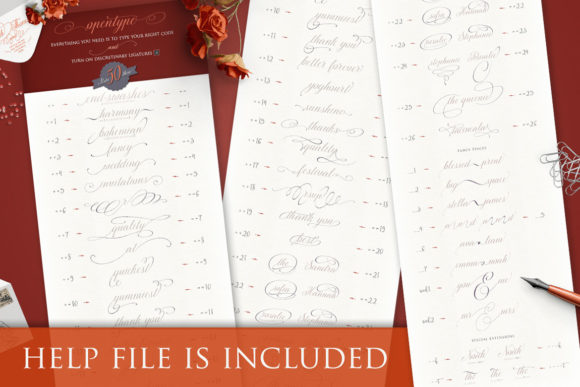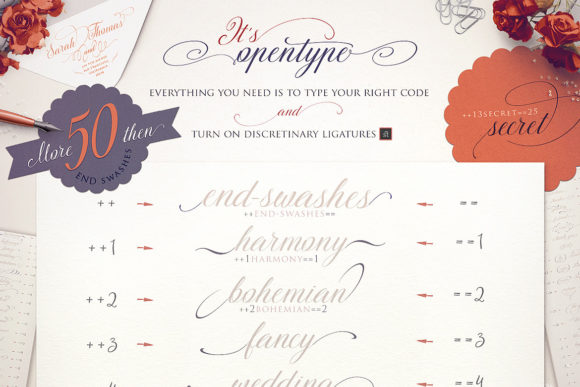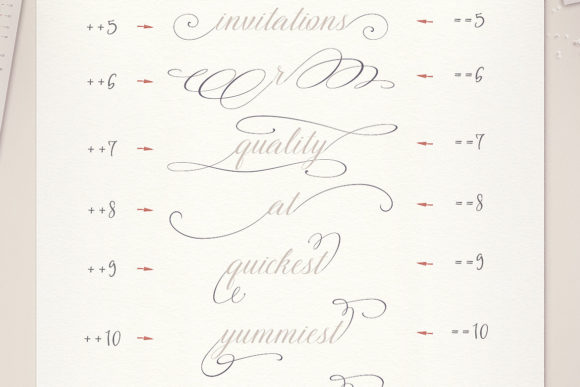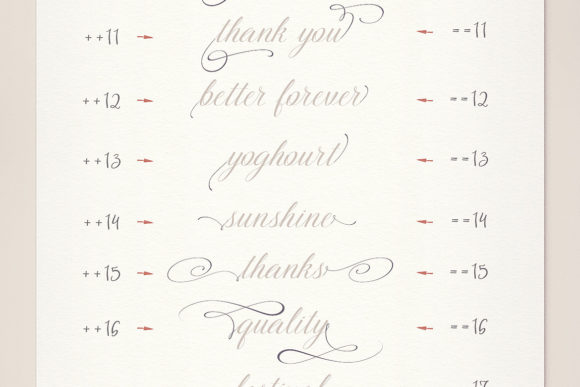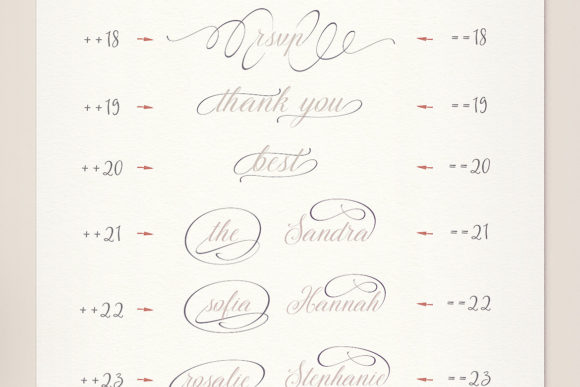
About The Secret Font
The Secret is a beautiful unique calligraphy style font that comes with loads of glyphs and features. The secret is so beautiful and contains so many features that it has been coined as the alternative to the beautiful Samantha script & Magnolia Sky font. Some will agree with this assessment, others might not, but we can all agree that The Secret is a stunning font with a even more stunning design. It’s unique and truly one of a kind.
This fancy font comes with 689 glyphs and contains more than 50 end-swashes. Every end swash has been carefully crafted by hand to create a perfectly balanced font.
Some of the unique features of The Secret font are:
– Contextual Alternates
– Discretionary Ligatures
– Stylistic Alternates
– Swashes & Swooshes
– PUA Encoding (Private Use Areas)
Creating The Secret Font
The creation of The Secret was a very delicate and time consuming process. In order to strike the right balance between elegance, usability and readability every glyph was created with a single key value in mind: Coherence.
Every letter has been carefully drawn, tested, drawn again and digitally optimized.
The result is a beautiful font where every letter integrates perfectly. While a lot of handwritten fonts are focusing on certain groups of users, The Secret has been created with both personal as professional use in mind.
Using The Secret
The Secret is a font that allows you to play and experiment. You can literally use it for any type of project. It doesn’t matter if you need to create a wedding invite, a business brochure or a lawyers business card. You can mix and match the letters to create a elegant & fancy design, a playful and fun design or a unique mix of elegance and playfulness.
Because of the great amount of glyphs you can use this font over and over again and still come up with something completely unique each time.